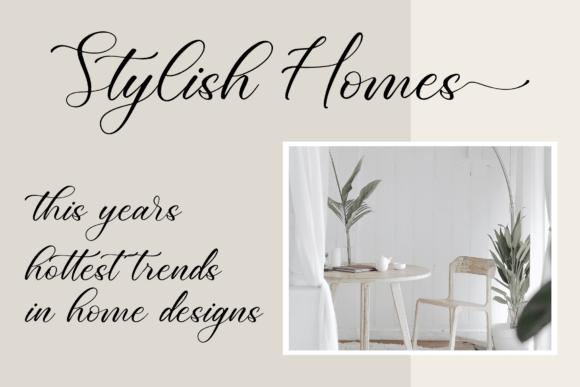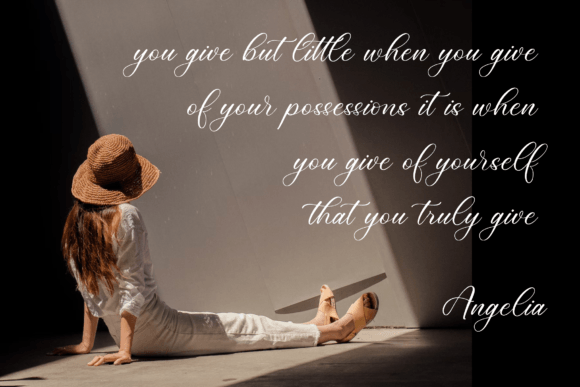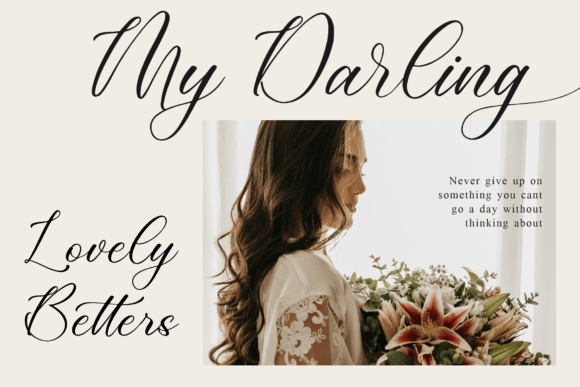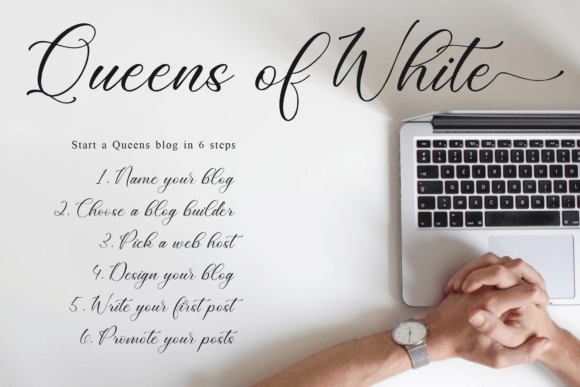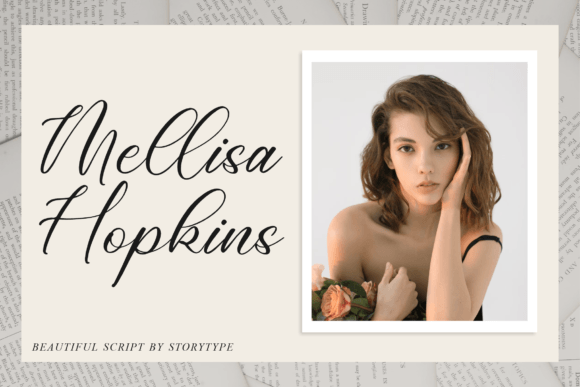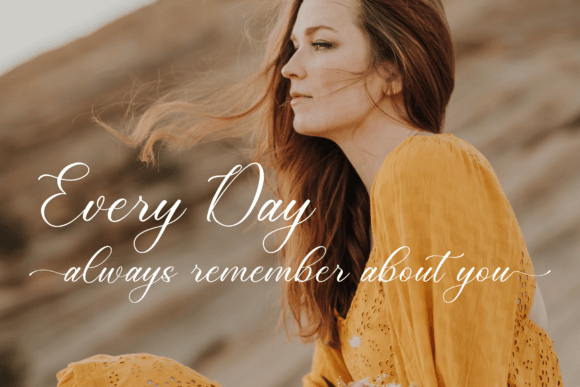
Unlocking the Magic of Handwritten Letters
As designers, we’ve all been there – staring at a blank page, trying to bring our creative vision to life. The cursor blinks, taunting us, as we search for the perfect font to set our message apart. And then, it happens – a spark of inspiration strikes, and we find the perfect match. For me, that moment came when I discovered the captivating Cathylise Janetson Font.
This beautifully crafted script font is a dream come true for designers seeking to add a touch of elegance and sophistication to their work. With its intricate details and PUA encoding, Cathylise Janetson Font is the ultimate companion for any creative project. Whether you’re crafting a wedding invitation, a book cover, or a social media post, this font has the potential to elevate your design to new heights.
Cathylise Janetson Font Key Features
- Font Family: Cathylise Janetson Font
- Font Styles: Regular, Italic, Bold, Bold Italic
- Resolution: Scalable to any resolution, ideal for print and digital use
- Unique Characteristic: Elegant, cursive script with a touch of whimsy, suitable for invitations, greeting cards, and wedding stationery
Cathylise Janetson Font Review
As a designer, I recently had the chance to work with the Cathylise Janetson font, and I have to say, it’s been an interesting experience.
- Unique Character: The Cathylise Janetson font has a very distinct and quirky feel to it, which can be great for projects that need a bit of personality.
- Legibility: Despite its unusual design, the font is surprisingly legible, even at smaller sizes.
- Expressiveness: The font’s irregularities give it a sense of expressiveness, which can be perfect for titles, headings, and other text that needs to stand out.
- Limited Usefulness: Due to its unconventional design, the Cathylise Janetson font may not be suitable for every project, particularly those that require a more formal or traditional look.
- Difficult to Read at Large Sizes: While the font is legible at smaller sizes, it can become overwhelming at larger sizes, making it harder to read.
- Lack of Consistency: The font’s irregularities can make it difficult to maintain consistency across different sizes and styles.
Overall, I’d say the Cathylise Janetson font is a great choice for projects that need a bit of flair and personality. However, it’s not suitable for every project, and designers should carefully consider its limitations before choosing to use it.
Some tips for getting the most out of the Cathylise Janetson Font include:
– Use it to create eye-catching headlines and titles.
– Pair it with other fonts to create a unique and visually appealing design.
– Experiment with different font sizes and colors to achieve the desired effect.
Common use cases for the Cathylise Janetson Font include:
– Creating posters and flyers for events and promotions.
– Designing business cards and letterheads.
– Creating social media graphics and advertisements.